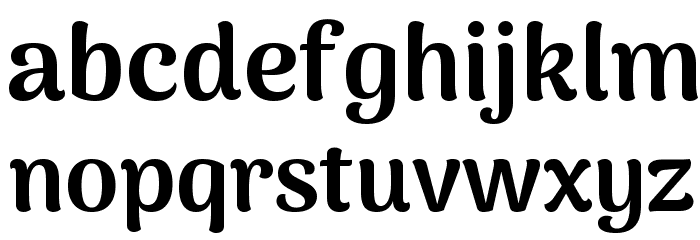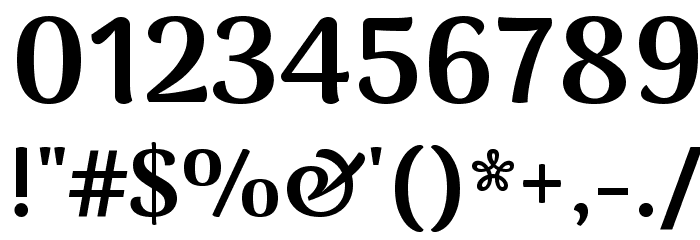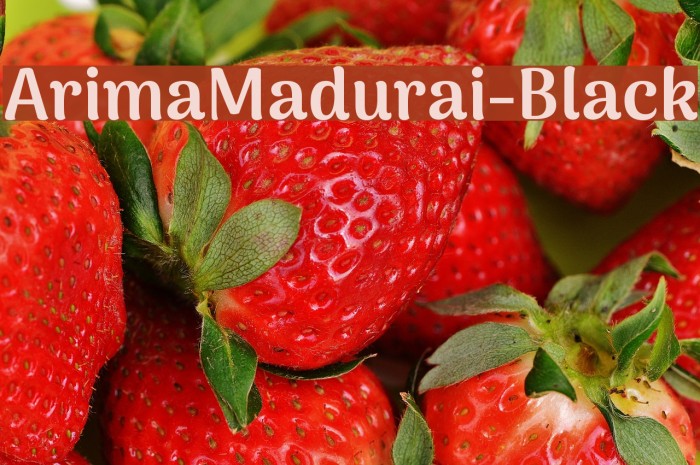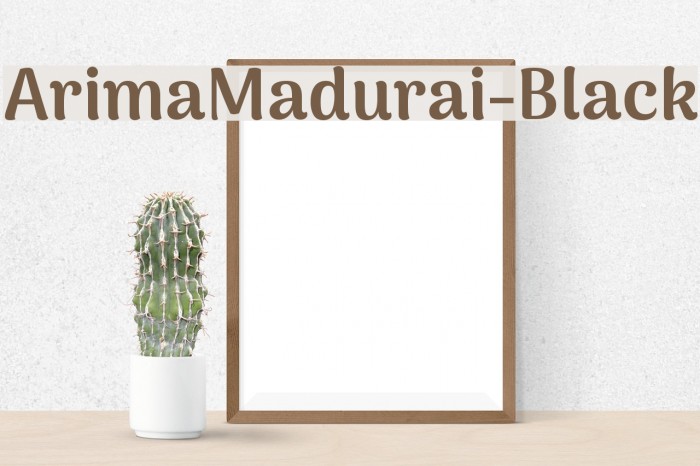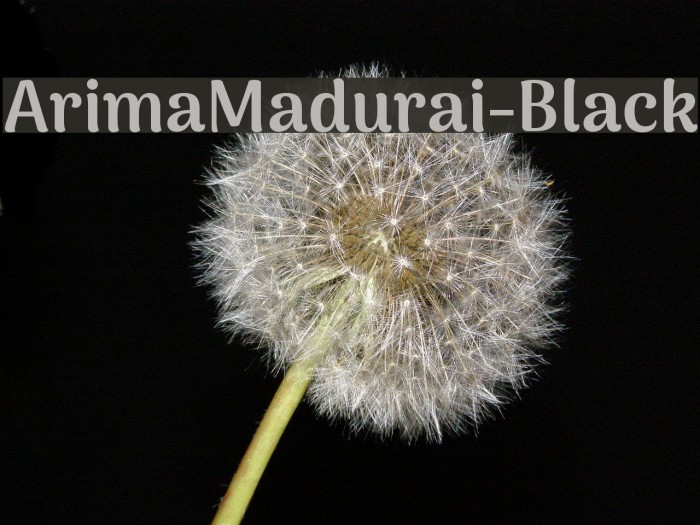
ArimaMadurai-Black Font
This font features a bold and rounded style with a playful yet structured appearance. The characters exhibit a strong presence with their thick strokes and slightly curved edges, giving them a friendly and approachable feel. The uppercase letters are robust and commanding, while the lowercase letters maintain a consistent flow with rounded terminals. The numerals are clear and legible, matching the overall boldness of the font. Special characters are designed with the same attention to detail, ensuring uniformity across all glyphs. This font's design is both modern and versatile, making it suitable for various applications.
A bold, rounded font with a playful yet structured style.